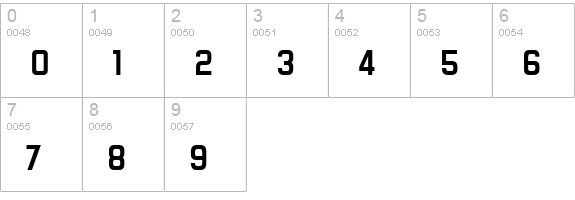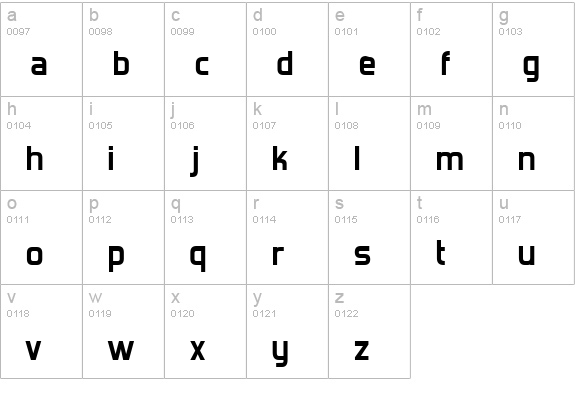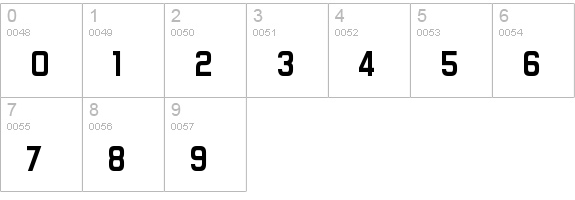
Forgotten Futurist Bold is a strong, high-contrast variant in the Forgotten typeface family \xE2\x80\x94 well suited to headlines, attention-grabbing titles, and strong calls-to-action.
Forgotten Futurist Bold font is a striking display typeface that exudes a sense of modernity and innovation. With its bold and futuristic design, this font is perfect for headlines, titles, and other attention-grabbing purposes. The clean lines and geometric shapes of Forgotten Futurist Bold make it versatile and easy to read, while still maintaining a unique and contemporary look. What sets Forgotten Futurist Bold apart is not only its design but also its availability. This font is freely available to download at FontsMarket.com, making it accessible to designers, creatives, and enthusiasts alike. Whether you're working on a branding project, a poster design, or simply want to add a touch of modernity to your creations, Forgotten Futurist Bold is a great choice. Download it today and unleash your creativity with this sleek and stylish font.